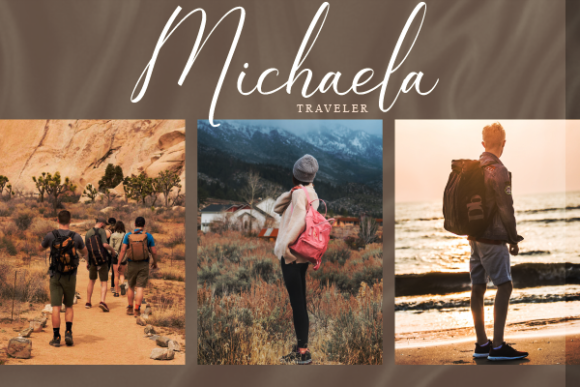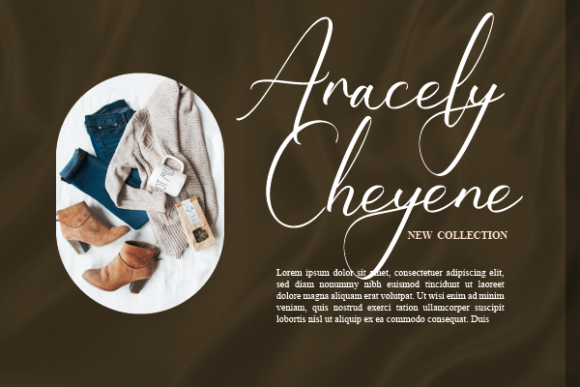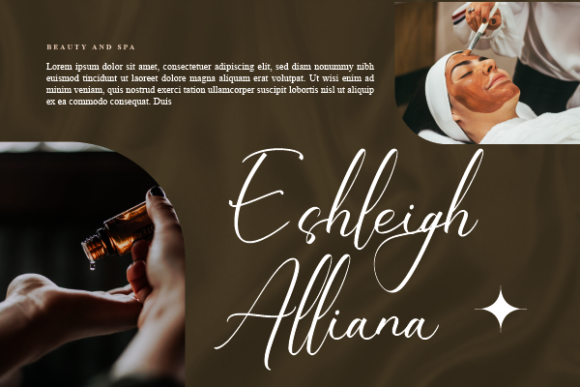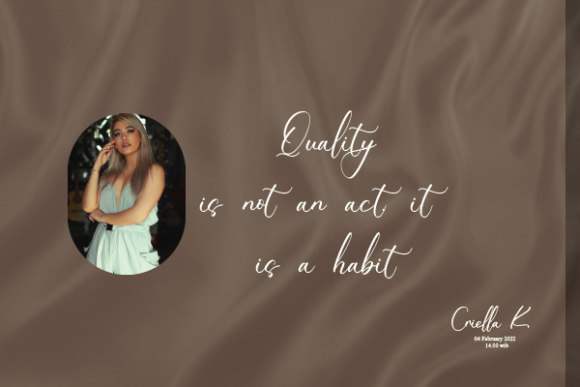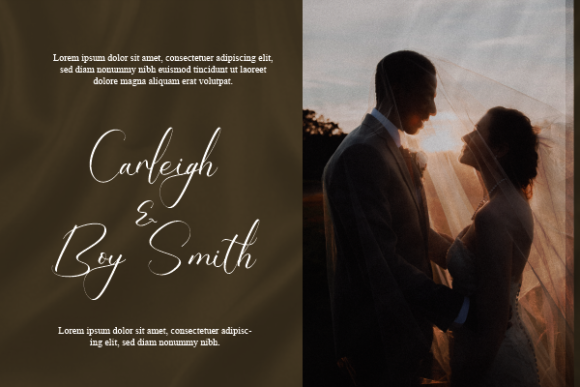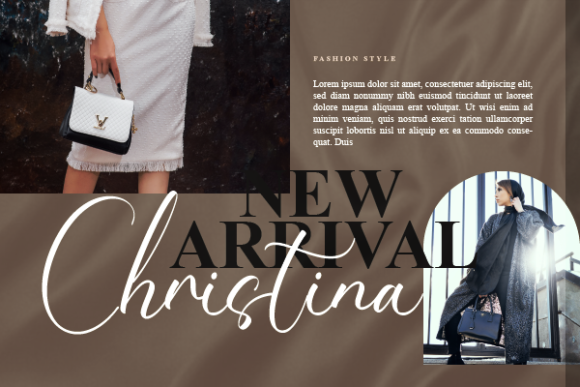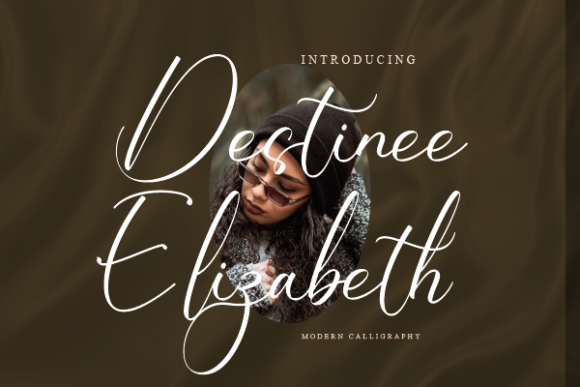
Introducing Destinee Elizabeth Font: Elevate Your Designs with Elegance
Are you on the hunt for a font that exudes elegance and sophistication? Look no further than the Destinee Elizabeth Font, a stunning handwritten font that is sure to capture your heart. With its flowing lines and timeless style, this font is perfect for designers and crafters looking to add a touch of luxury to their projects.
The Characteristics of Destinee Elizabeth Font
Destinee Elizabeth Font is a beautifully crafted handwritten font that boasts an elegant touch. Its unique and distinct style is characterized by:
• Flowing Lines: The font features smooth, flowing lines that give it a sense of movement and fluidity.
• Elegant Touch: The font’s elegant touch makes it perfect for projects that require a sophisticated and refined look.
• Timeless Style: The font’s classic style ensures that it will remain relevant and stylish for years to come.
Why Choose Destinee Elizabeth Font?
So, why should you choose Destinee Elizabeth Font for your next project? Here are just a few reasons:
• Versatility: The font is perfect for a wide range of projects, from wedding invitations and branding materials to social media graphics and more.
• Readability: The font is highly readable, making it ideal for both digital and print applications.
• Uniqueness: The font’s unique style ensures that your designs will stand out from the crowd.
Destinee Elizabeth Font is a dream come true for designers and crafters. Whether you’re working on a:
• Wedding Invitation: Add a touch of elegance to your wedding invitations and save the dates.
• Branding Project: Use the font to create a sophisticated and memorable brand identity.
• Social Media Graphic: Elevate your social media graphics with the font’s flowing lines and elegant touch.
• Crafting Project: Use the font to add a personal touch to your crafting projects, such as handmade cards and gift tags.
Tips for Using Destinee Elizabeth Font
To get the most out of Destinee Elizabeth Font, here are a few tips:
• Pair it with a Sans-Serif Font: Pair the font with a sans-serif font for a stylish and modern look.
• Experiment with Colors: Try out different colors and textures to add depth and interest to your designs.
• Use it for Headings: Use the font for headings and titles to add a touch of elegance to your designs.
In conclusion, Destinee Elizabeth Font is a stunning handwritten font that is sure to elevate your designs. With its flowing lines, elegant touch, and timeless style, this font is perfect for designers and crafters looking to add a touch of luxury to their projects. So why wait? Fall in love with Destinee Elizabeth Font and start creating spectacular designs today!